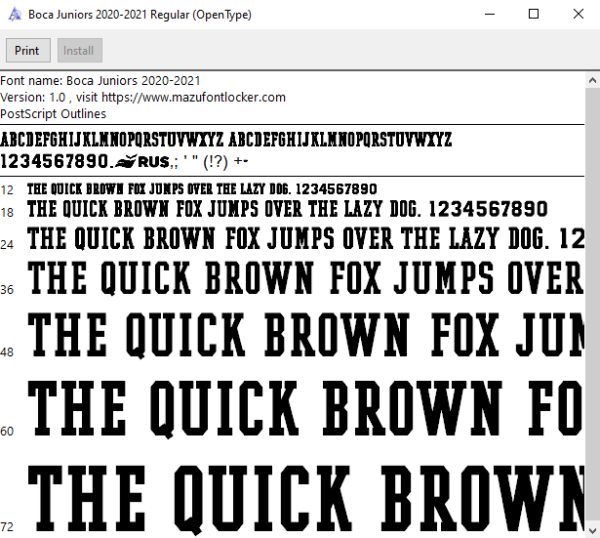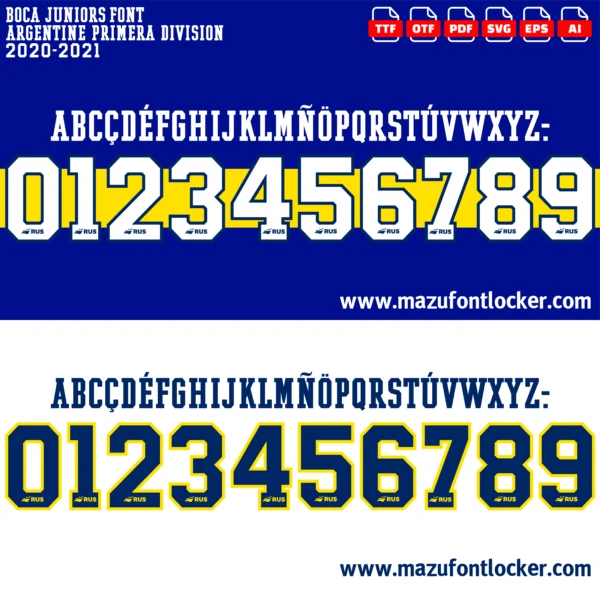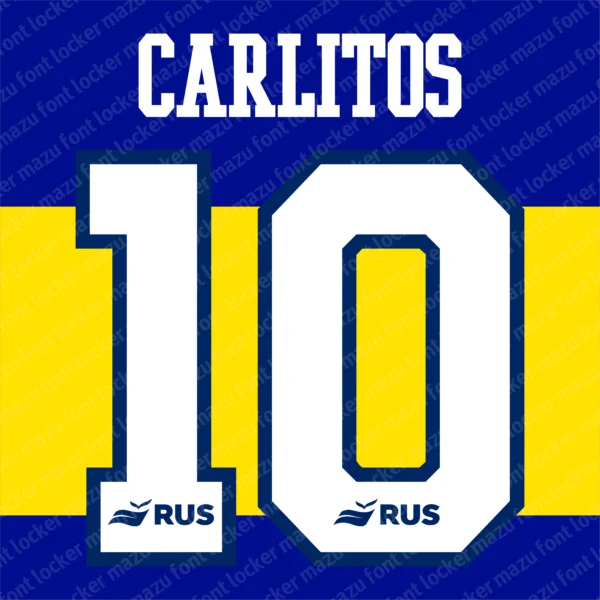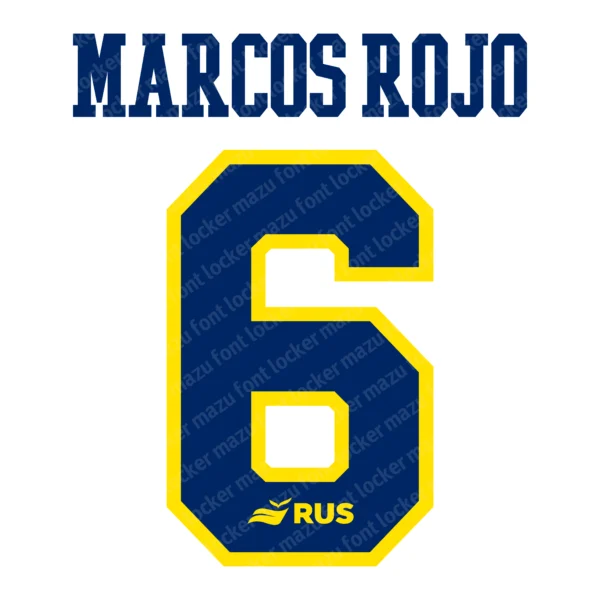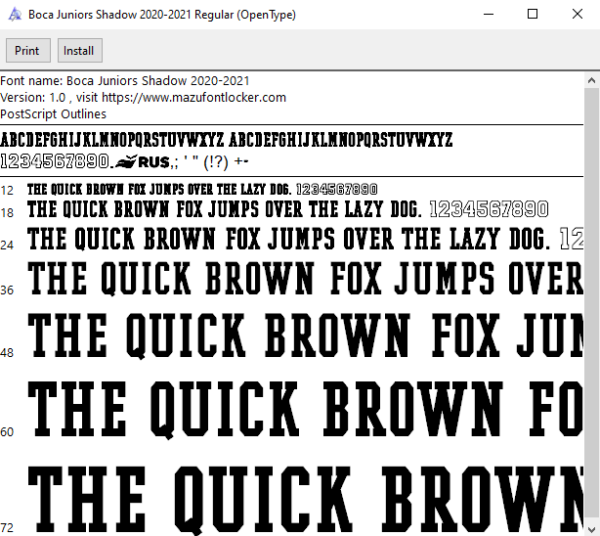
Boca Juniors 2020-2021 Font Vector – Stunning Xeneize Legacy Typeface
This premium font captures the fearless, iconic, commanding, and championship-caliber lettering that embodies the relentless Xeneize identity — delivering explosive La Bombonera energy, unwavering Buenos Aires pride, iron-willed determination, tactical brilliance, fierce South American intensity, and the legendary Boca fighting spirit that has made Boca Juniors one of the most feared and celebrated clubs in world football.
Boca Juniors 2020-2021 Font Vector – Authentic Xeneizes Typeface
The Boca Juniors 2020-2021 Font Vector is a premium typeface that faithfully recreates the official match lettering worn by Boca Juniors during the exciting 2020-2021 season. This high-quality vector font kit captures the bold, iconic, and professional typography that reflects the club’s rich history, relentless fighting spirit, and legendary football culture of the Xeneizes.
Designed for football designers, jersey collectors, and passionate Boca supporters, the Boca Juniors 2020-2021 Font Vector delivers exceptional authenticity for creating realistic jersey mockups, custom fan apparel, football graphics, social media content, and South American football-inspired projects. The font perfectly complements Boca Juniors’ famous blue and yellow kit, recognized worldwide by football fans.
Why Choose Boca Juniors 2020-2021 Font Vector
This font kit offers outstanding vector precision and authentic club styling. Every letter and number has been carefully recreated to match the official shirt printing used throughout Boca Juniors’ 2020-2021 campaign. Whether you’re designing professional kit concepts or celebrating the legacy of the Xeneizes, this font delivers the unmistakable atmosphere of La Bombonera.
The Boca Juniors 2020-2021 Font Vector features bold geometric letterforms with clean edges and balanced proportions. Inspired by the official match typography, every character combines modern athletic styling with Boca Juniors’ timeless football identity, ensuring excellent readability across every design application.
The numbers showcase strong curves, sharp detailing, and consistent spacing for a professional on-field appearance. Built entirely as scalable vectors, every numeral remains crisp and accurate for both digital projects and high-resolution printing.
• Complete uppercase A–Z alphabet and numbers 0–9
• Multilingual Latin character support with special characters
• Includes accurate crest glyph positioning beneath player numbers.
Boca Juniors 2020-2021 Season
The 2020-2021 season saw Boca Juniors compete in the Argentine Primera División, Copa de la Liga Profesional, Copa Libertadores, and Copa Argentina. Featuring players such as Carlos Tevez, Eduardo Salvio, Sebastián Villa, and Carlos Izquierdoz, Boca continued to showcase its winning mentality while competing at the legendary La Bombonera.